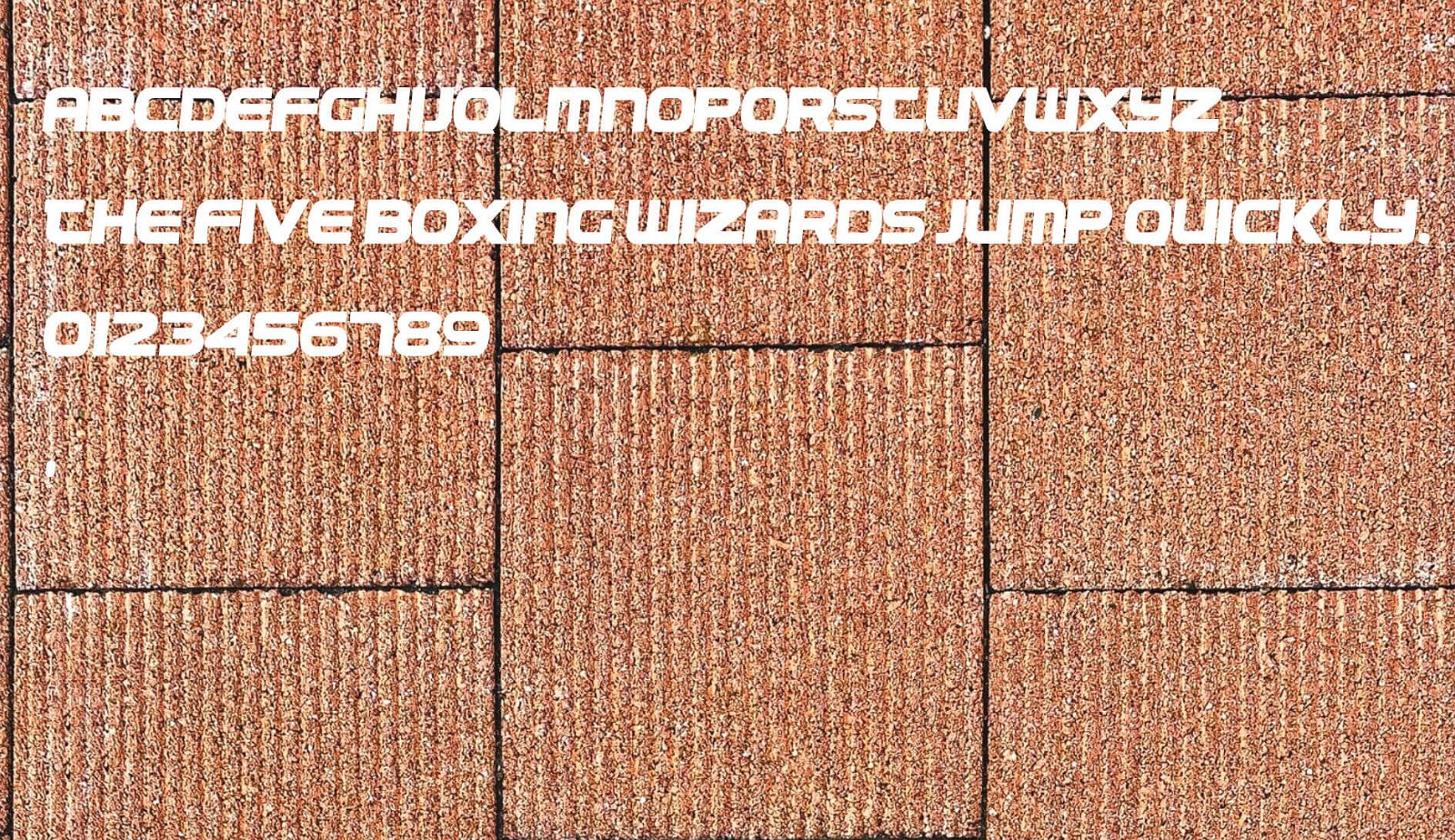
Let’s discussed a very popular sans-serif typeface that was used for the logo title of Pepsi. This amazing typeface was designed by Jakub Degorski. As you know that, Pepsi is a very prominent carbonated soft drink and it was founded by Caleb Bradham as Brad’s Drink in the year of 1886. The logo of Pepsi has been redesigned so many times and there are many different fonts that were used for its logo titles. But we are discussing the latest typeface that has recently been used for the Pepsi logo title.
The font used for the Pepsi logo is a sans-serif typeface that is known as Pepsi font. It was designed by Jakub Degorski. This font comes in one regular style and advanced features as well as 80 unique glyphs and 266 interesting characters including Uppercase, Numerals, Basic Latin, Latin Extended-A, Latin-1 Supplement, Latin Extended-B, Spacing Modifier Letters, Greek and Coptic, General Punctuation, Mathematical Operators, Letterlike Symbols, Geometric Shapes.
Reason to Use Pepsi Font
Pepsi font is a general sans serif font that looks like Adidas font very daring when you notice it in its photographs. This amazing font is very suitable for any type of logo design because of its clear and bold look. It can attract the viewers same as the Pepsi logo. This amazing font is very suitable for any type of logo design because of its clear and bold look.
It can attract the viewer’s same as the Pepsi logo. You can not only make logos for your brand but also for websites, companies, organizations,s and so on. This font is also suitable for any design like posters, banners, book covers, homeware designs, art designs, brochure layouts, t-shirt designs, mug designs, business and wedding cards, and many more.
This typeface is also very useful for any headline and title due to its bold characters and it can bring a unique look to your all text designs such as store/shop names, quotes, and printing projects.
Who created the Pepsi font?
Pepsi Font is a very good-looking sans-serif typeface that was designed by Jakub Degorski. He was the primary designer for this attractive font.
What does the Pepsi logo look like?
Pepsi brand’s logo font was redesigned in 2008 that is very similar to the old one. Half is red and the bottom half is blue and there is a white wavy line through the center that looks like a glob.
What is the Pepsi font called?
Since 1962, Pepsi has used a basic, all-caps sans-serif typeface for its logo title. This was a very gorgeous sans-serif typeface and was gained very tremendous popularity among the designers.
What font is similar to Pepsi?
There is a lot of sans-serif typefaces that are mostly similar font to the Pepsi font but Harry Plain font is the closest font to this typeface.